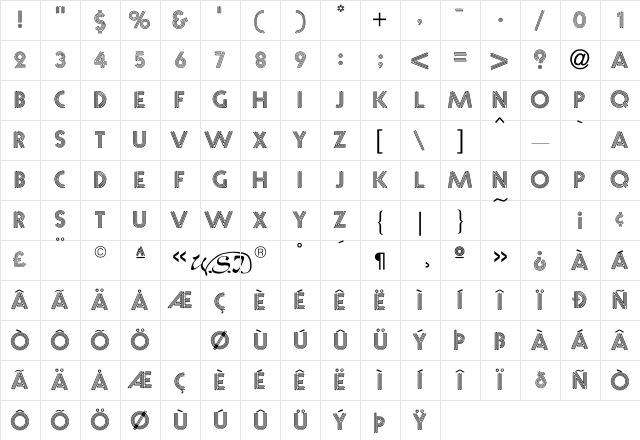
Neon Caps Regular Free Font
Neon Caps Regular
Neon Caps Family
Design Context for Neon Caps
Neon Caps has a distinctly futuristic character, with geometric precision and clean angles that feel at home in technology, gaming, and sci-fi contexts.